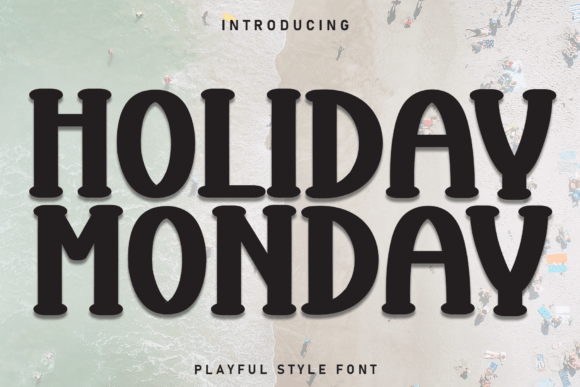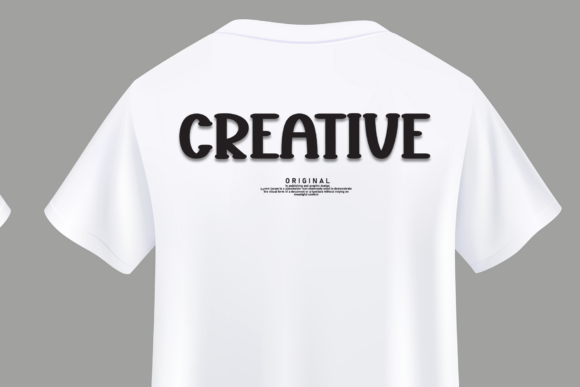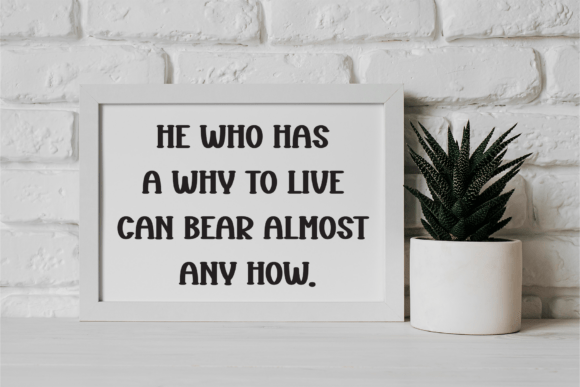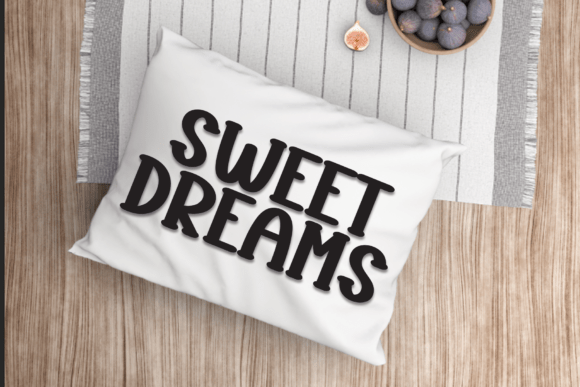
Holiday Monday Font: A Bold Retro Display Font for Summer Designs
About the Holiday Monday Font
Welcome to the world of Holiday Monday Font, a typeface that will inspire your next great project. Holiday Monday is a bold and fun display font with a retro-inspired look. Its chunky, rounded letterforms bring a playful and energetic feel, making it perfect for travel posters, summer designs, branding, social media graphics, and holiday-themed projects. This font adds a joyful and carefree vibe to any creative work!
Holiday Monday’s playful energy makes it ideal for headlines, short slogans, and logos where a bold, retro statement is desired. It excels in branding for businesses with a fun, approachable image, such as ice cream shops, surf brands, or children’s products. However, its chunky weight and limited character set make it unsuitable for body text or UI elements requiring high readability.
Pairing Holiday Monday with a clean sans-serif like Open Sans for body copy provides excellent contrast and readability. For a more vintage feel, consider pairing it with a serif like Playfair Display. A script font like Great Vibes could add a touch of whimsy to projects needing an extra layer of playful personality.
The font’s overall personality is best described as cheerful and nostalgic, evoking feelings of summer fun and carefree adventure. This makes it a strong choice for projects aiming for a vibrant and optimistic aesthetic.
Holiday Monday Font Usage Examples
Holiday Monday Font Example